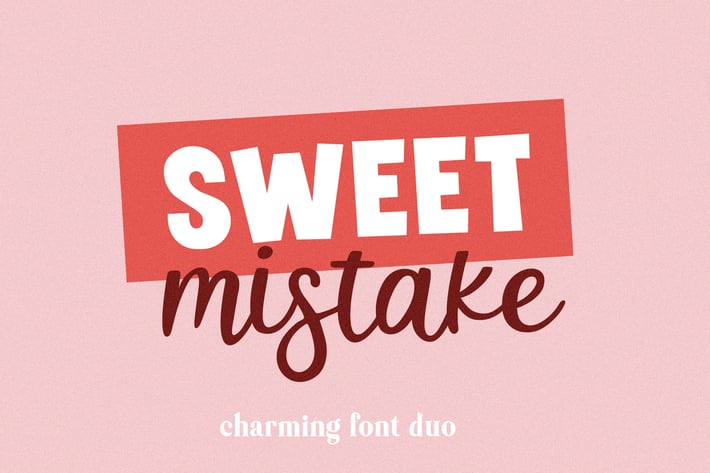
Sweet Mistake Font Duo
Sweet Mistake a charming handwritten font duo for crafters
- Sweet Mistake Script Font - Upper and lowercase letters
- Sweet Mistake Sans Serif Font - Capital letters
- Numbers
- Multilingual support